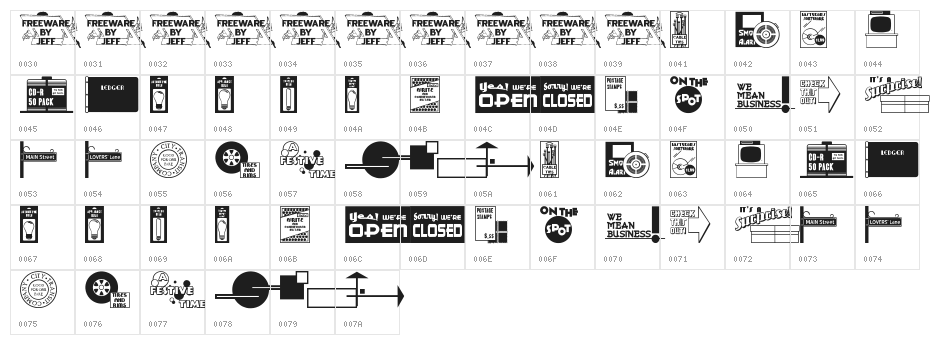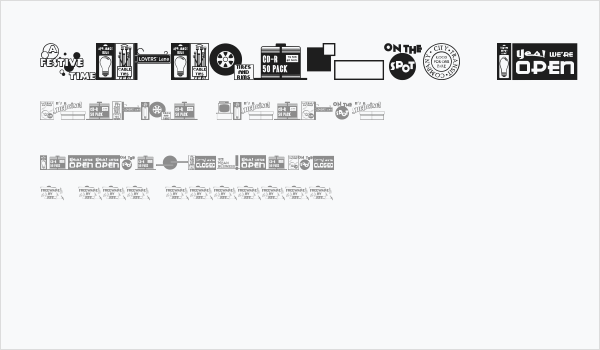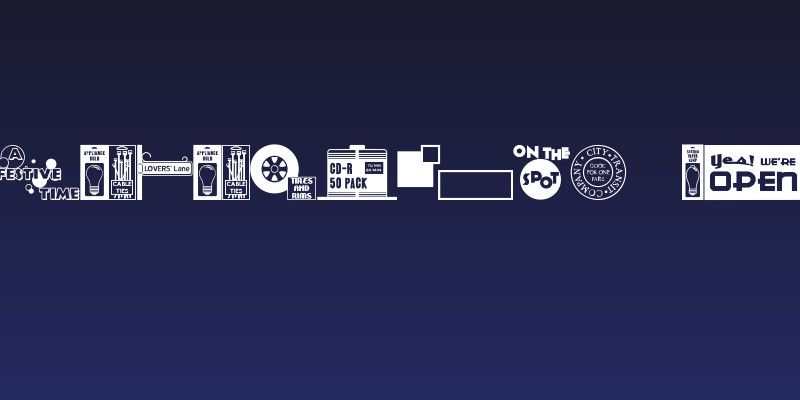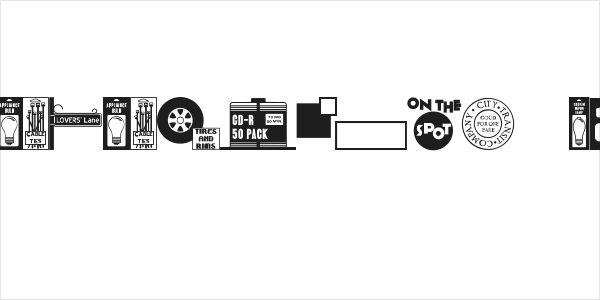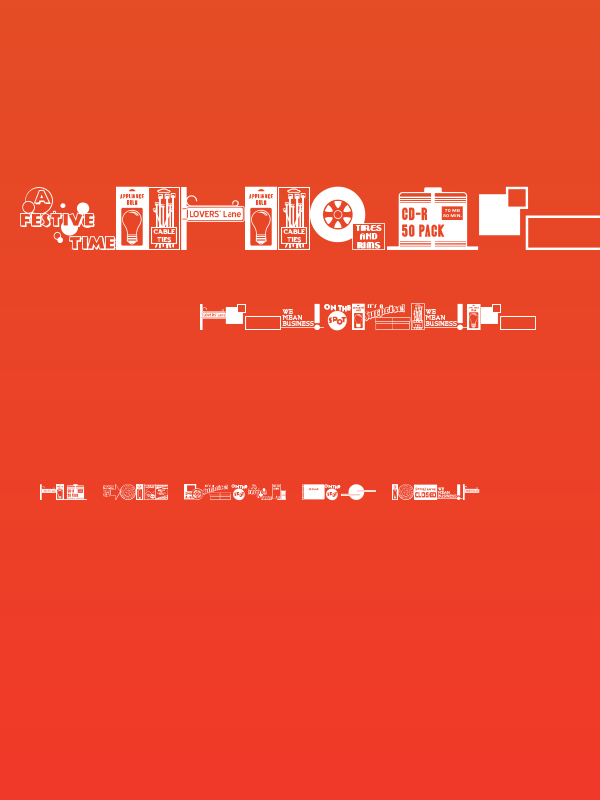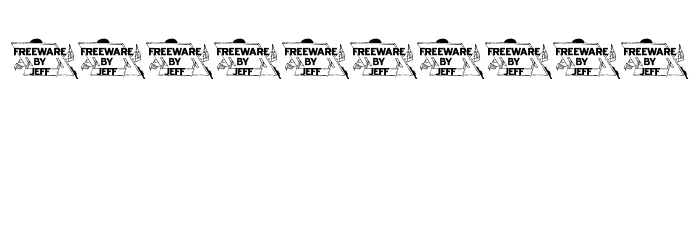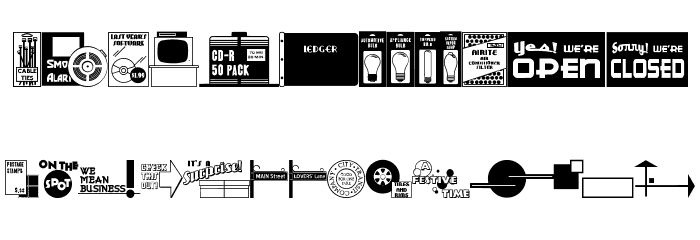
What-Have-You JL Font
This is not a valid font. The image contains a series of graphic elements and text that appear to be part of a decorative or illustrative design rather than a cohesive typeface. The elements include various icons, signs, and phrases that are arranged in a pattern. These components are not structured in a way that forms a complete alphabet or set of characters typically found in a font.
| Use Case | Graphic art, Posters, Signage |
| Proposed Projects | This design could be used for creating themed posters, graphic art, or decorative signage. |